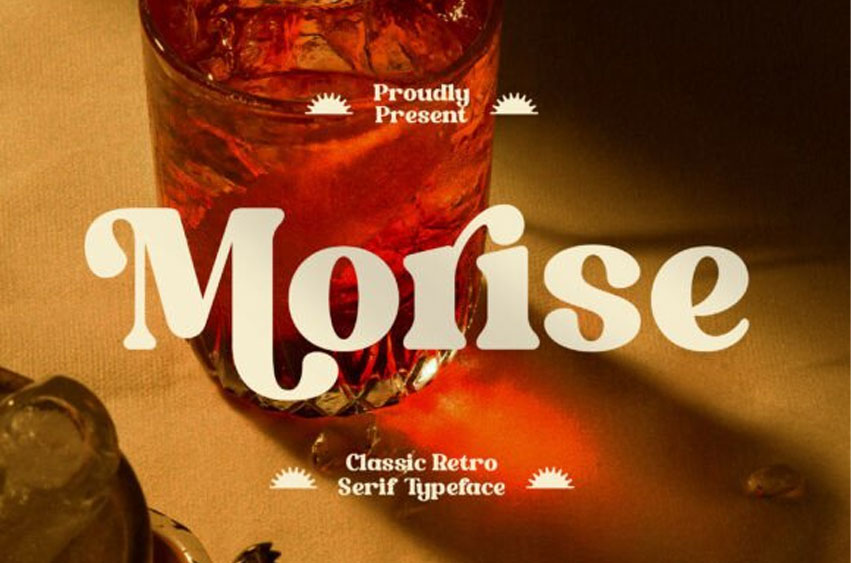
Morise Font is a classic retro serif typeface inspired by timeless typography and vintage aesthetics. Featuring smooth curves, bold yet refined strokes, and elegant serif details, Morise brings a warm and nostalgic character to any design.
Perfect for branding, logos, editorial design, packaging, posters, café menus, and retro-themed projects, Morise delivers strong visual impact while maintaining excellent readability.